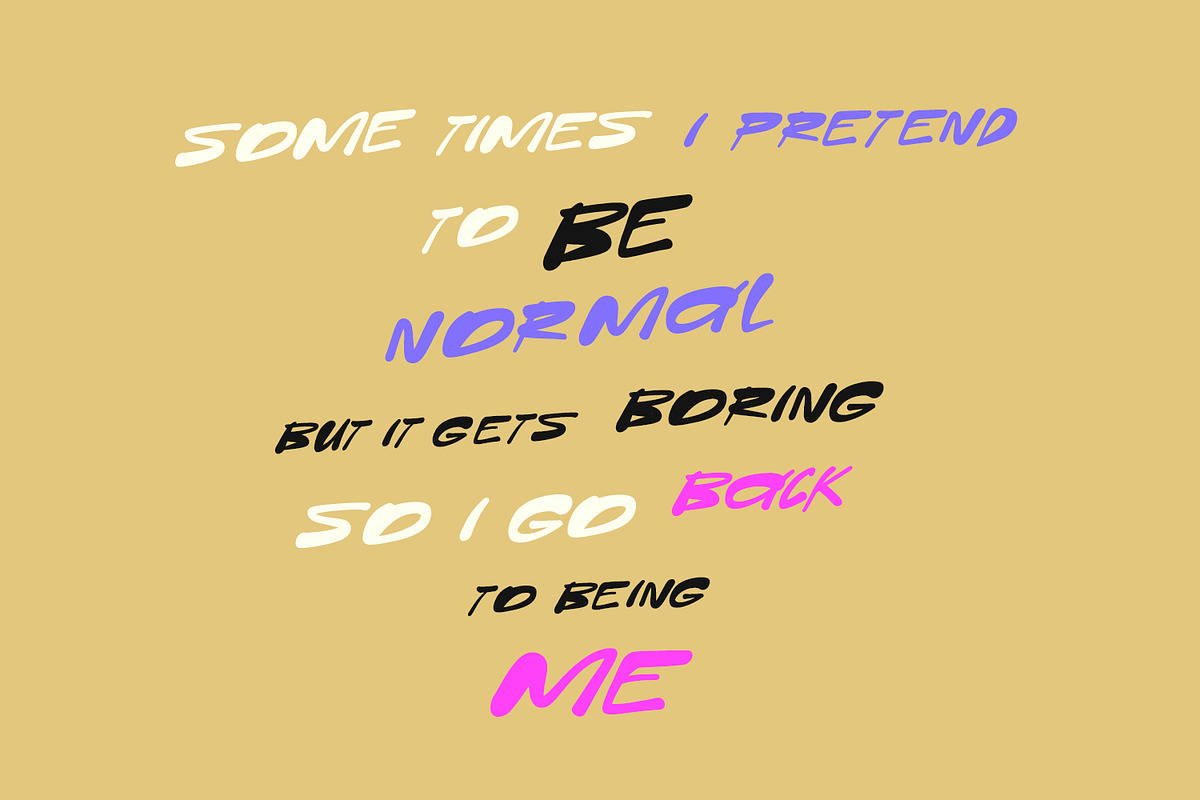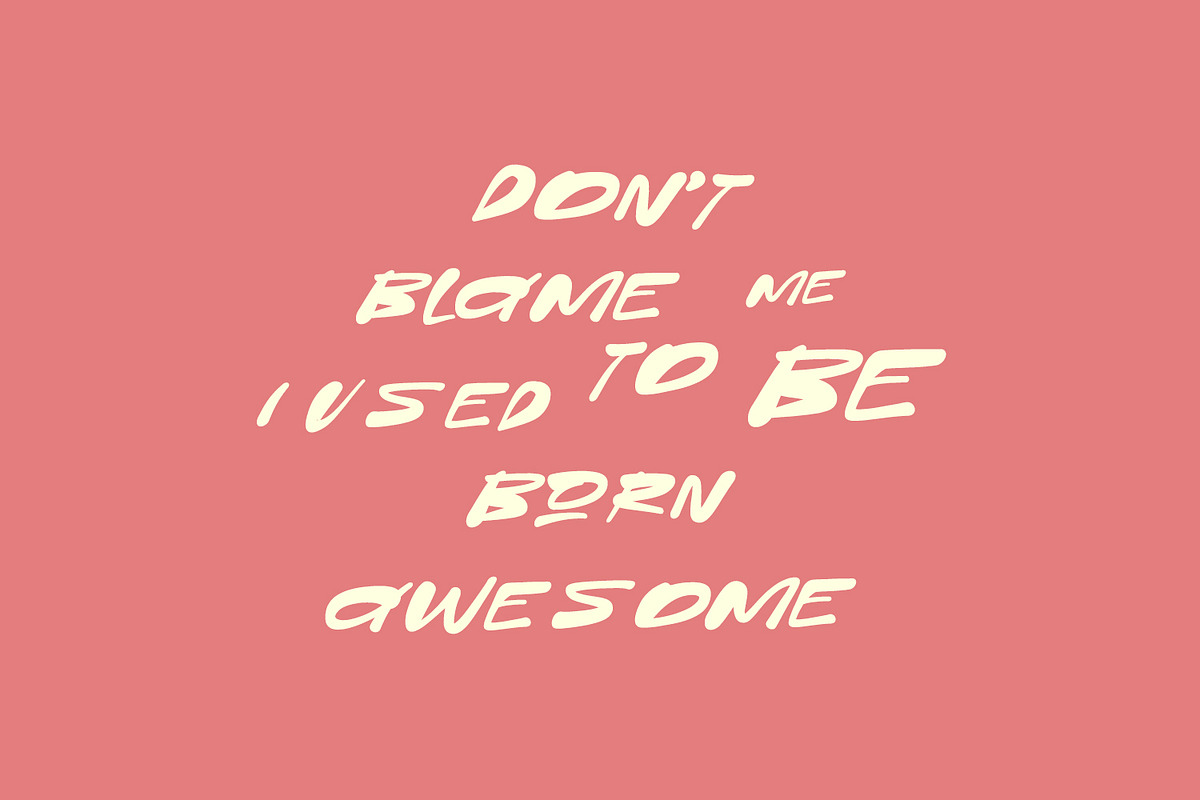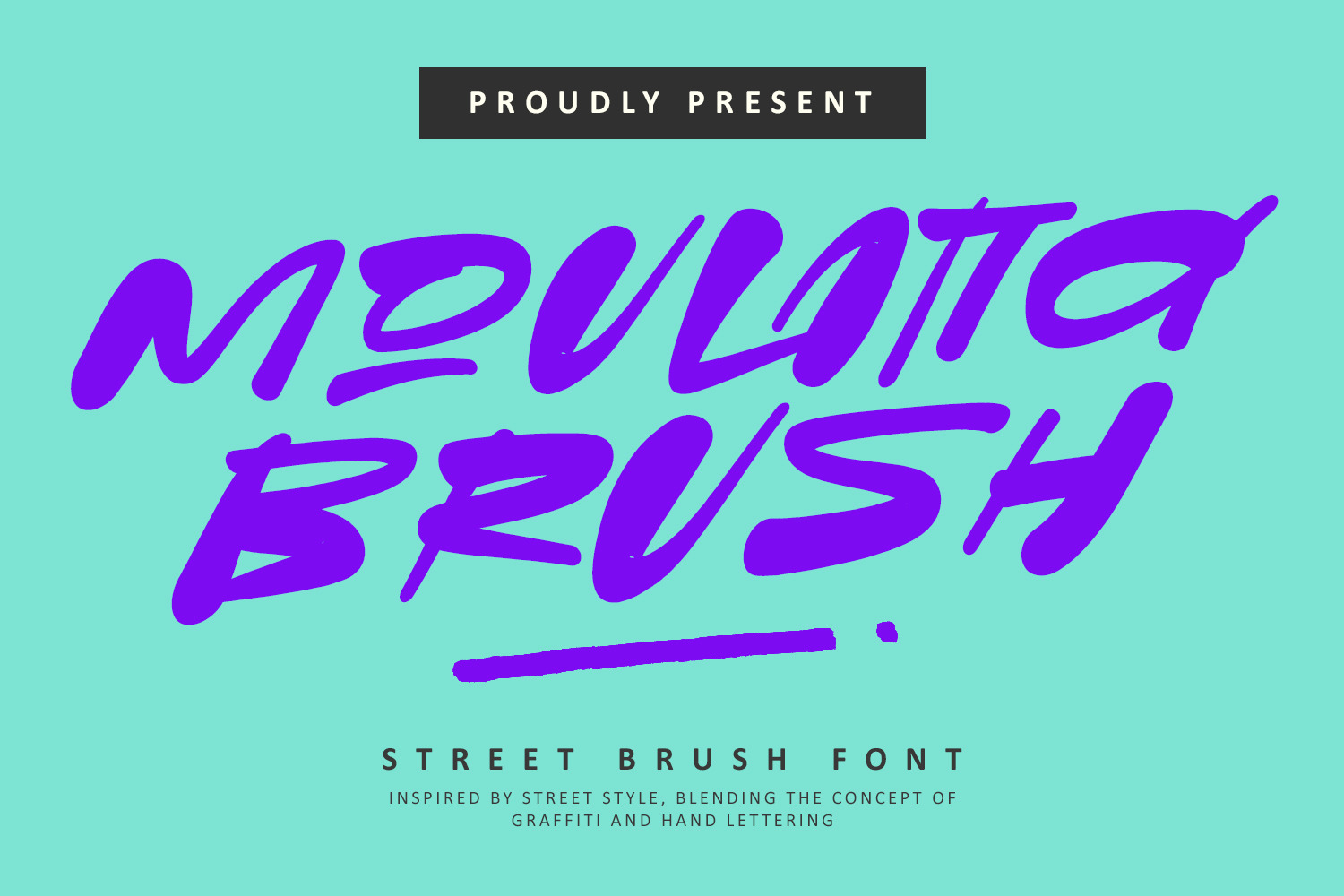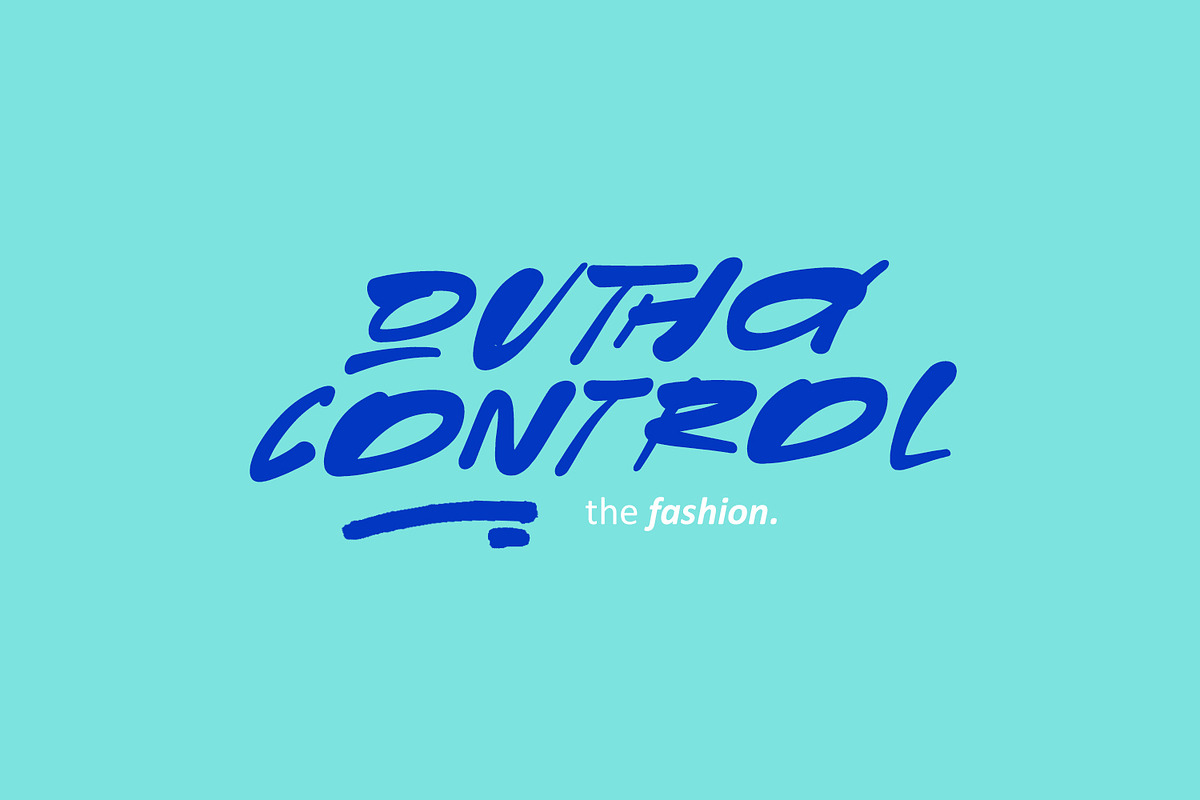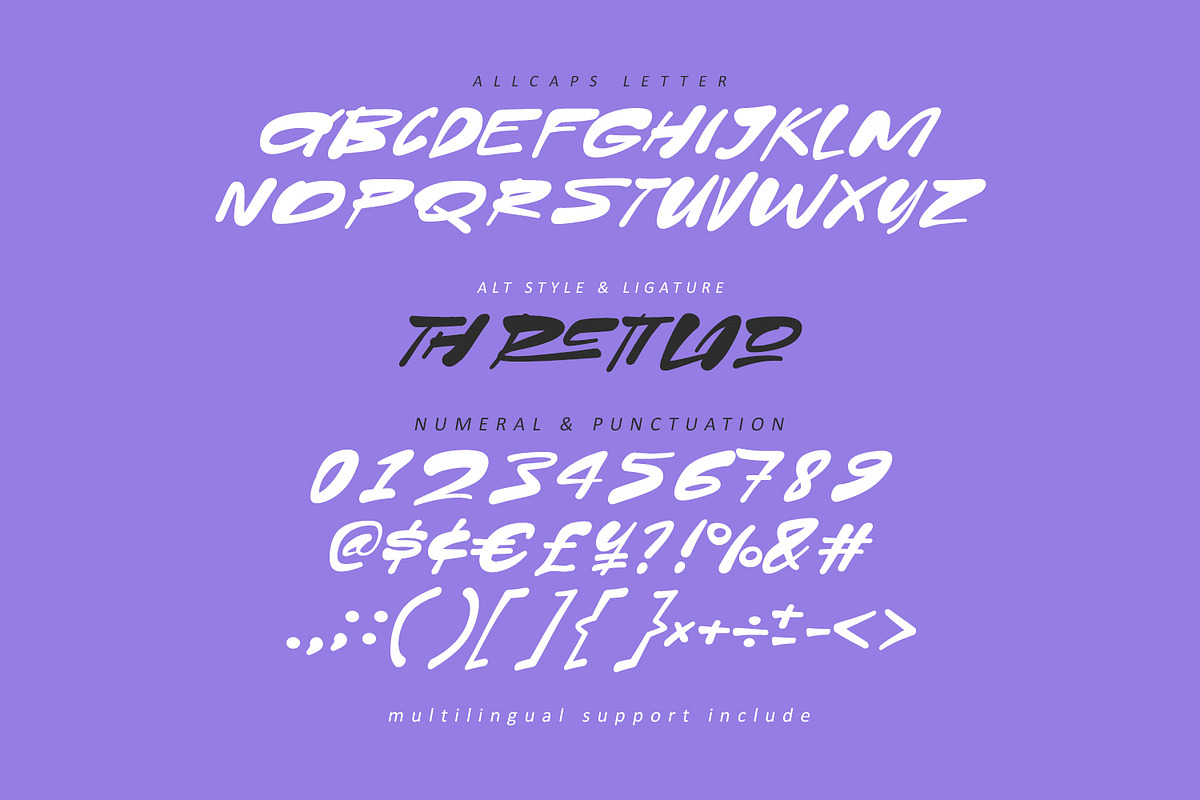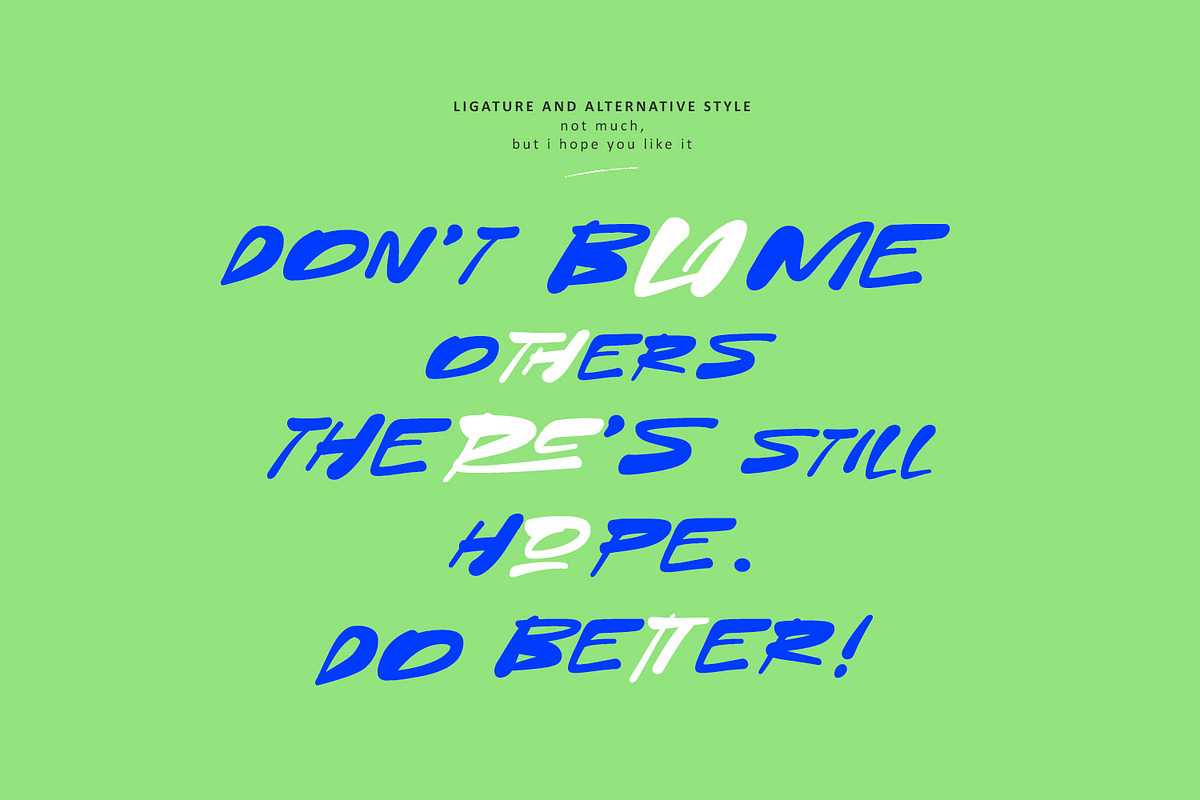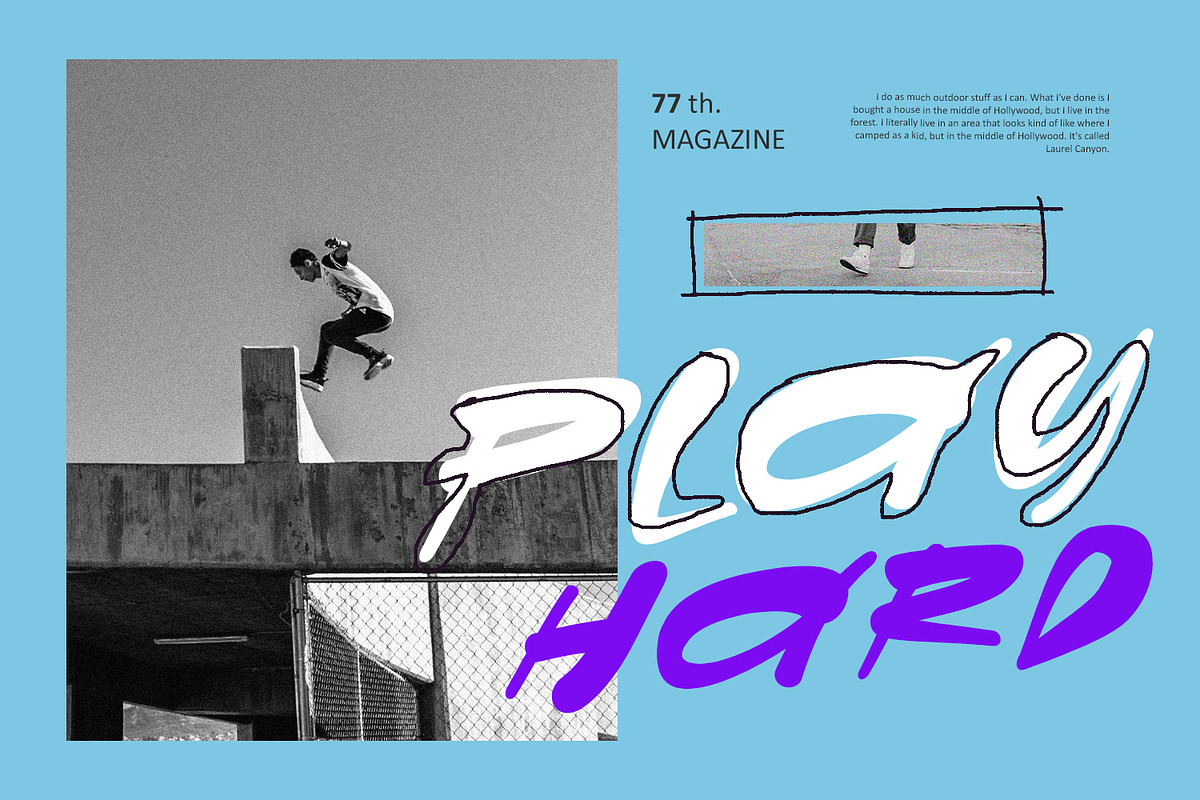
Moulatta Handmade Brush Font
Give your designs an authentic handcrafted feel. “Moulatta Handmade Brush Font” is perfectly suited to stationery, logos and much more. Include alternative character and ligature characters.